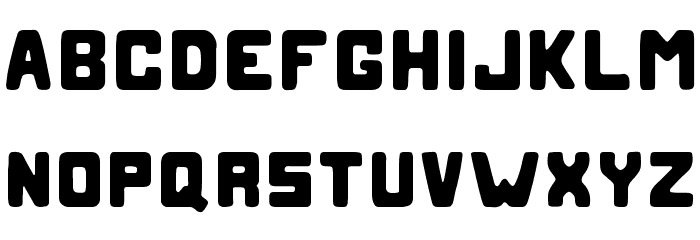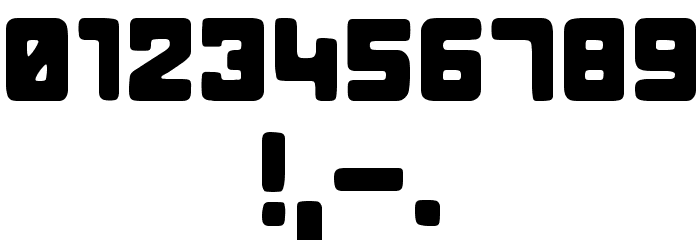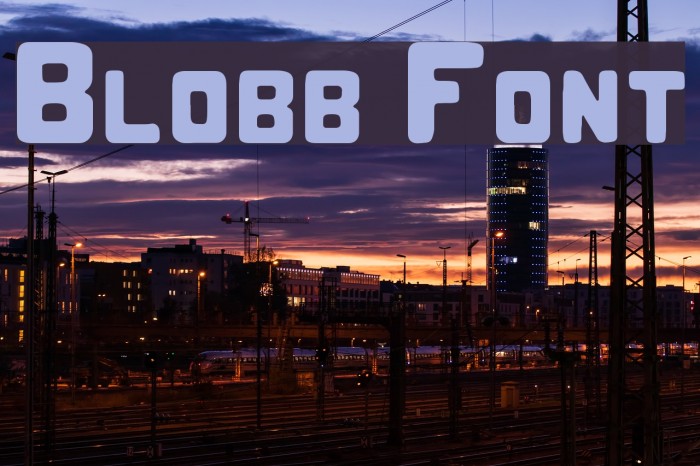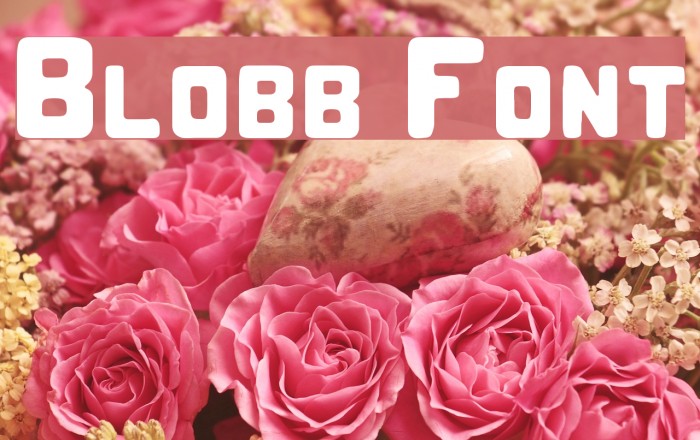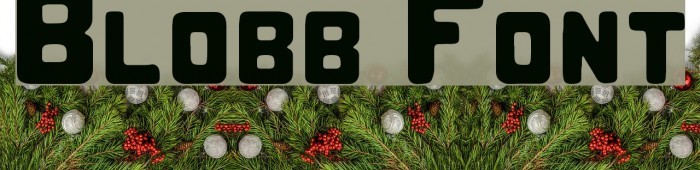
Blobb Font
This font features a bold, rounded style with a playful and modern aesthetic. The characters are thick and uniform, with smooth curves and a consistent stroke width that gives a sense of stability and friendliness. The uppercase and lowercase letters maintain a cohesive look, making it versatile for various design needs. The numbers and special characters follow the same rounded and bold design, ensuring readability and a cohesive appearance across all glyphs. Its unique style makes it stand out, while still being legible and functional.
A bold, rounded font with a playful and modern aesthetic.
- Proposed Projects: Ideal for branding, logos, children's books, playful packaging, and modern web design.